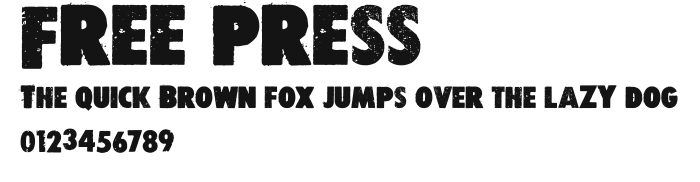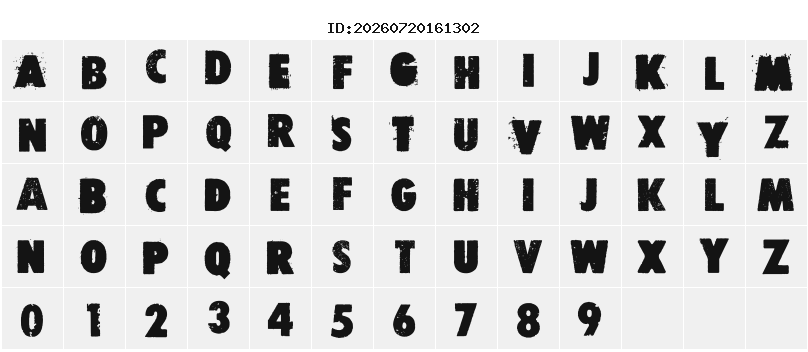
• Font Name: Free press
• Designer: imagex
About Free press.ttf
Free press.ttf is a modern, elegant sans-serif font designed for ultimate readability and visual harmony. Perfect for branding, headlines, web design, and print materials.